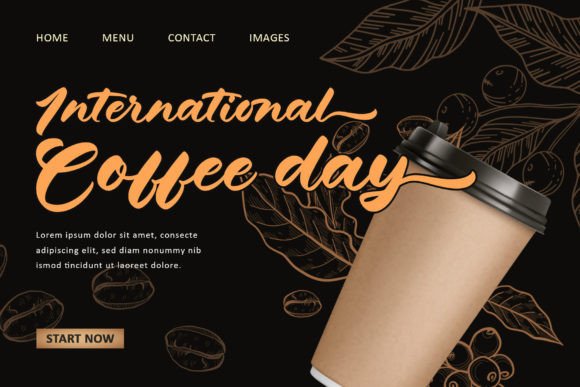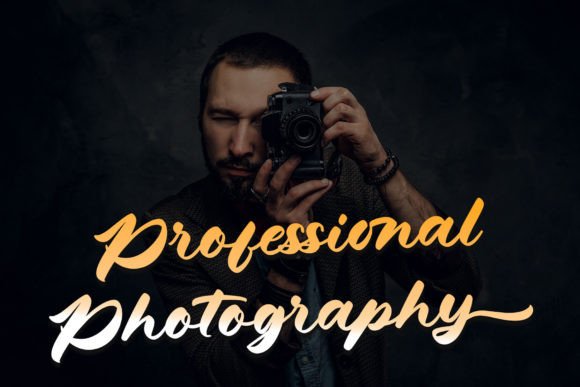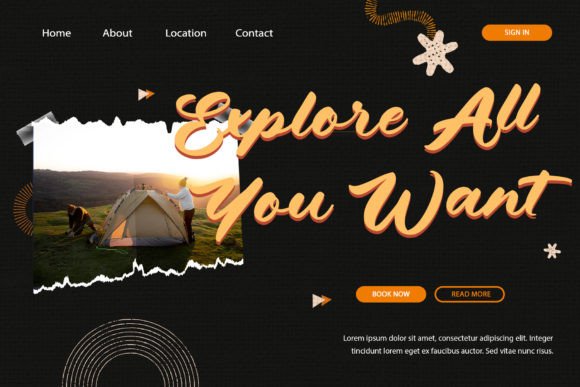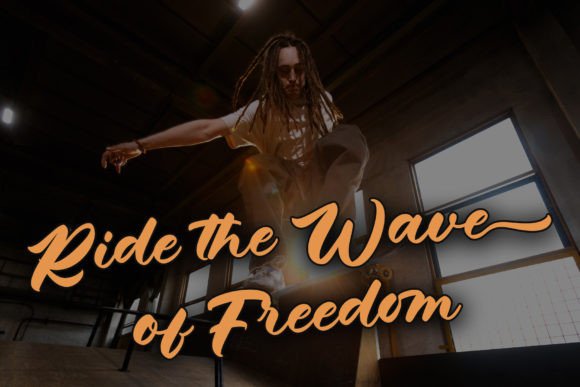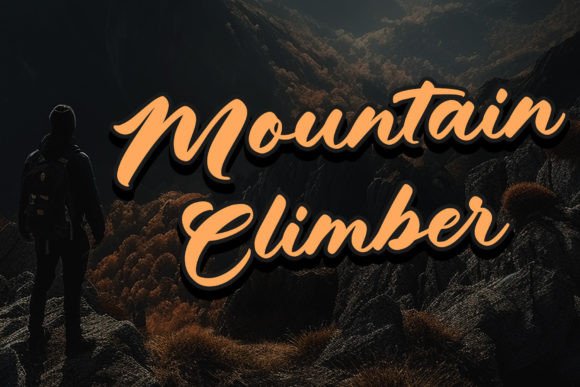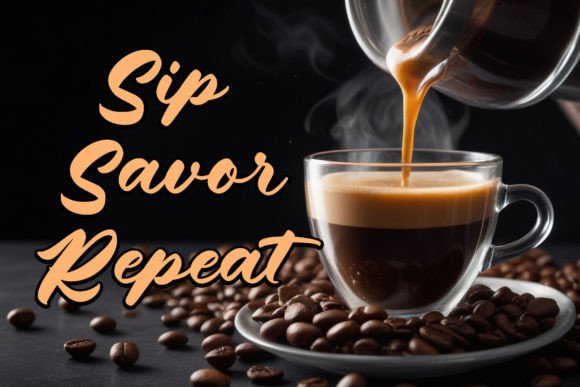
Introduction to Roaring Majesty Font
Introducing Roaring Majesty, a bold Handwritten font that roars with regal strength and captivating elegance.
Crafted to bring an energetic yet sophisticated flair to your designs, this font features bold, sweeping strokes and an organic brush texture that adds a dynamic touch to any project Whether youโre designing logos, posters, packaging, or any other creative masterpiece, Roaring Majesty commands attention and exudes confidence.
Key Features of Roaring Majesty Font
Why Choose Roaring Majesty Font?
Roaring Majesty Font offers exceptional quality and versatility, making it a valuable addition to your design toolkit. Whether you’re creating for personal projects or commercial use, Roaring Majesty Font delivers professional results.